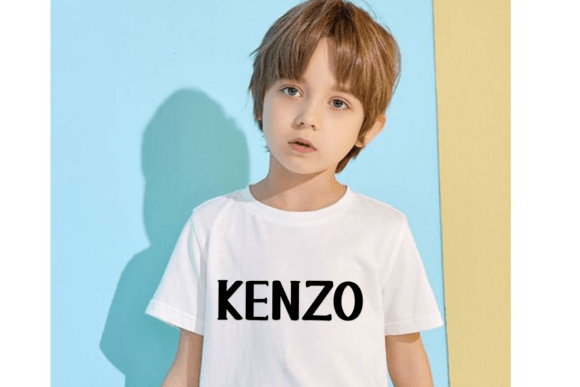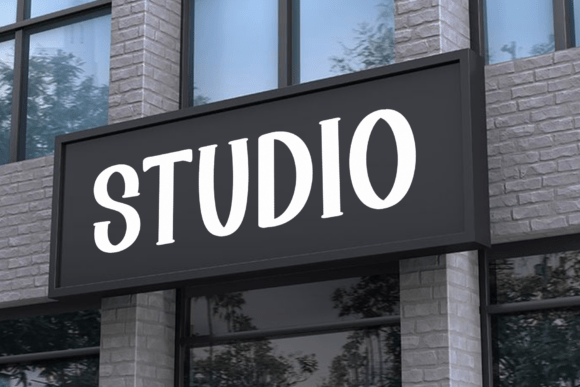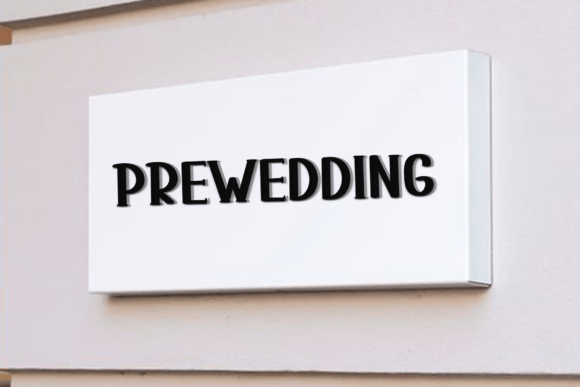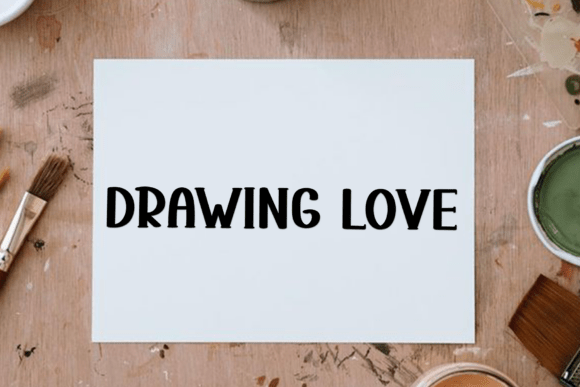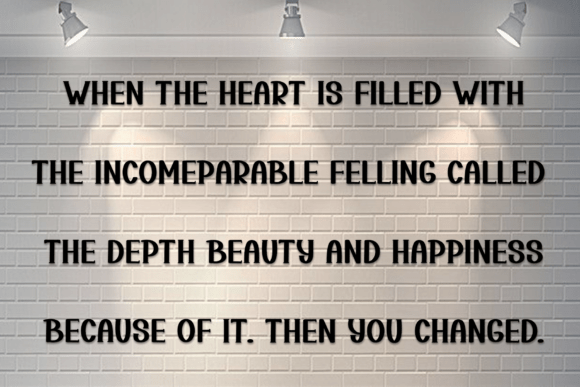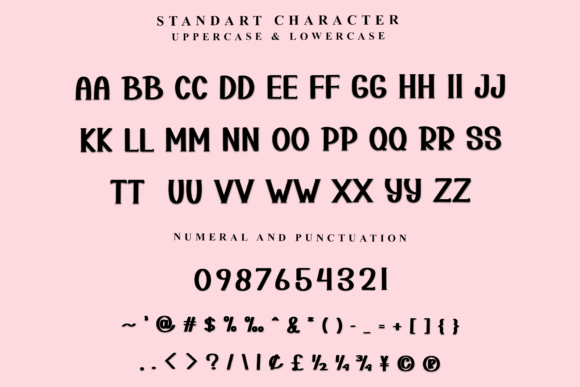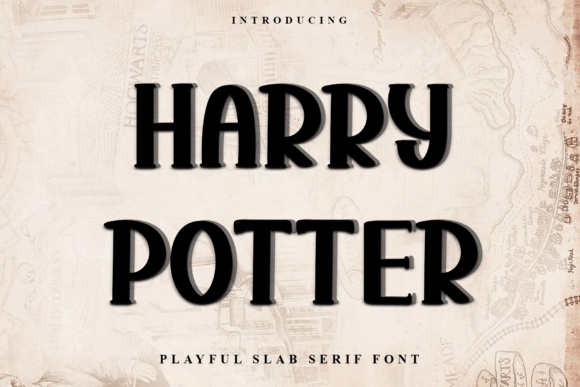
Introducing the Enchanting Harry Potter Font: A Magical Addition to Your Designs
As a designer or crafter, you’re likely always on the lookout for unique and captivating typography to elevate your projects. If you’re a fan of the wizarding world, you’ll be delighted to discover the Harry Potter Font, a festive and merry typeface that embodies the spirit of the holiday season. With its decorative elements and whimsical flair, this enchanting font is perfect for adding a touch of magic to your designs.
A Festive and Whimsical Typeface
The Harry Potter Font is a beautifully crafted typeface that exudes a sense of wonder and enchantment. Its decorative elements and whimsical flair make it an ideal choice for holiday-themed projects, such as greeting cards, gift tags, and festive posters. The font’s playful and cheerful ambiance is sure to transport your audience to a world of magic and fantasy.
Whether you’re designing greeting cards, gift tags, or holiday-themed posters, the Harry Potter Font is the perfect choice. Its festive and merry vibe adds a touch of nostalgia and cheer to your designs, making them perfect for the holiday season. The font’s versatility also makes it suitable for a wide range of projects, from DIY crafts to professional designs.
One of the standout features of the Harry Potter Font is its PUA (Private Use Area) encoding. This means that you can access all of the amazing glyphs and ligatures with ease, giving you complete creative control over your designs. With the Harry Potter Font, you can effortlessly add a touch of magic to your typography, making your designs truly unique and eye-catching.
Bringing a Cheerful and Nostalgic Ambiance to Your Words
The Harry Potter Font is more than just a typeface – it’s an experience. Its cheerful and nostalgic ambiance brings a sense of warmth and coziness to your designs, making them perfect for the holiday season. Whether you’re designing for personal or professional use, this font is sure to evoke a sense of wonder and enchantment in your audience.
Tips for Using the Harry Potter Font
To get the most out of the Harry Potter Font, here are a few tips:
- Use it for holiday-themed projects, such as greeting cards, gift tags, and festive posters.
- Experiment with different font sizes and colors to add a touch of whimsy to your designs.
- Combine the Harry Potter Font with other festive fonts and graphics to create a unique and eye-catching design.
- Don’t be afraid to get creative and add your own personal touch to your designs.
In conclusion, the Harry Potter Font is a magical addition to any designer’s or crafter’s toolkit. Its festive and merry typeface, decorative elements, and whimsical flair make it perfect for holiday-themed projects. With its PUA encoding and ease of use, this font is sure to bring a touch of enchantment to your designs. So why not give it a try and let your typography shine with the magic of the Harry Potter Font?
Get Ready to Cast a Spell with Your Designs!
With the Harry Potter Font, you’ll be able to create designs that are truly magical. Whether you’re a seasoned designer or a crafty DIY enthusiast, this font is sure to inspire you to create something truly special. So go ahead, get creative, and cast a spell with your designs!